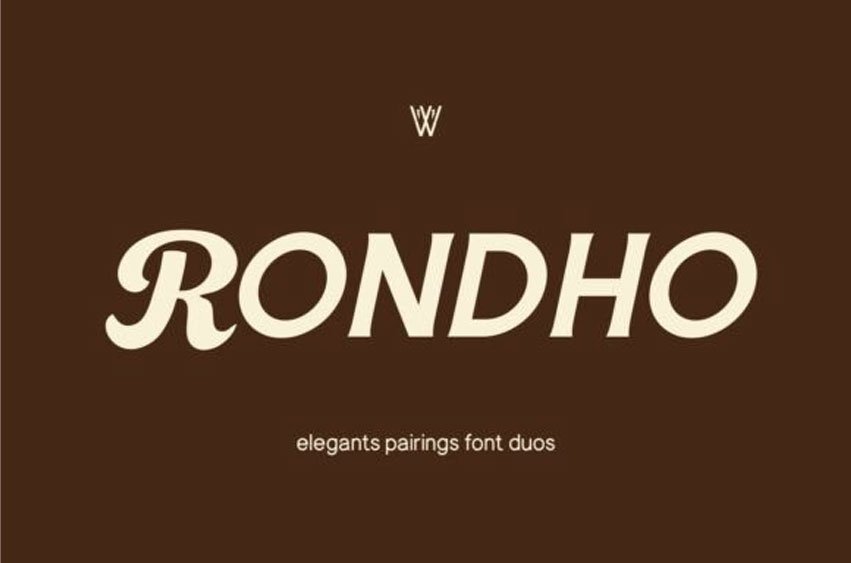
Rondho Font
Rondho Font is a luxury retro font duo that combines a bold vintage sans with a smooth classic script, creating an elegant yet nostalgic typographic harmony. This font duo is designed to work beautifully together, making it effortless to create eye-catching logos, café branding, vintage labels, and social media designs.
Whether you are designing for coffee brands, restaurants, lifestyle brands, or retro-themed projects, Rondho gives your typography a timeless and charming look.